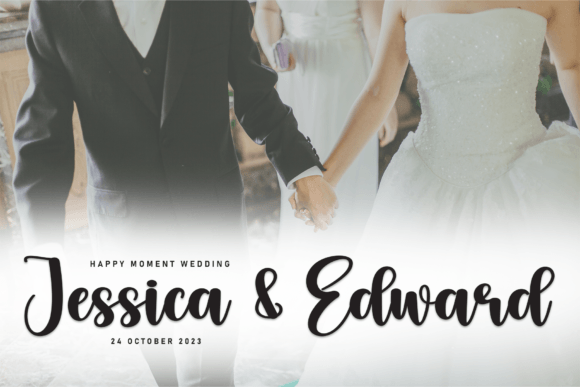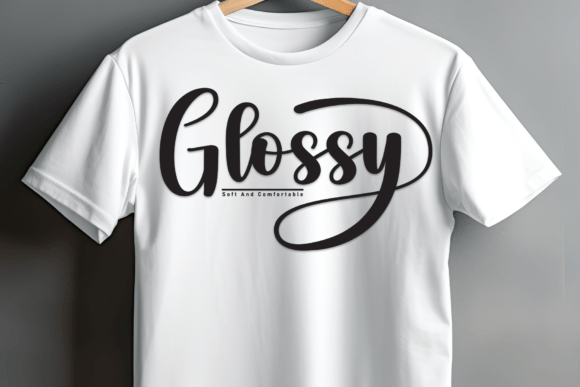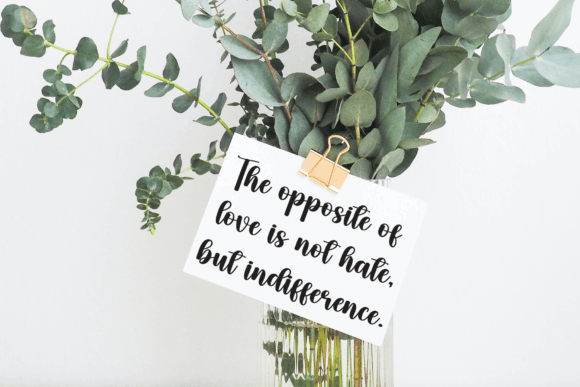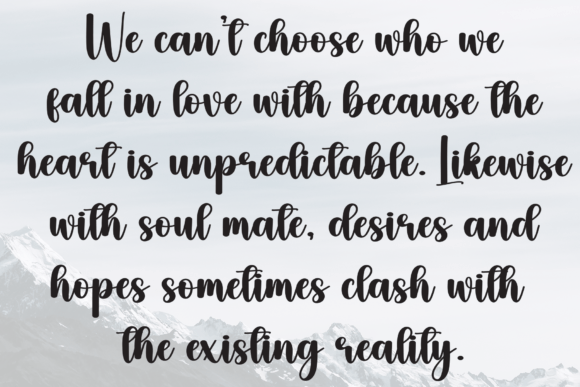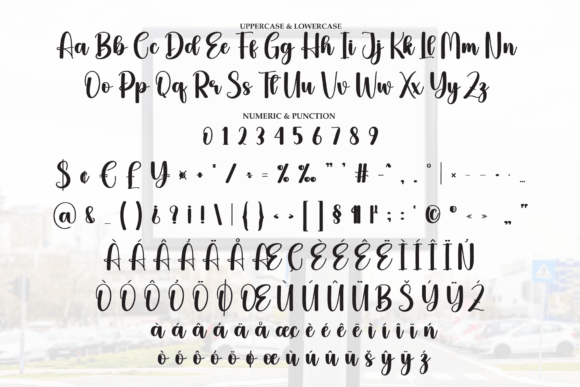
Discover the Charm of Advertising Font: A Sweet and Friendly Handwritten Display Font
Are you a designer or crafter looking for a font that can add a touch of whimsy and fun to your designs? Look no further than Advertising Font, a sweet and friendly handwritten display font that’s perfect for a variety of creative projects. In this article, we’ll take a closer look at the features and benefits of Advertising Font, and explore how you can use it to elevate your designs.
What is Advertising Font?
Advertising Font is a beautiful, handwritten display font that’s designed to bring a touch of personality and charm to your designs. With its cute and fun style, this font is ideal for writing wedding invitations, cards, or any other design that might need a fun touch. Whether you’re a professional designer or a crafty DIY enthusiast, Advertising Font is a versatile and easy-to-use font that can help you create stunning designs.
Key Features of Advertising Font
So, what makes Advertising Font so special? Here are just a few of its key features:
• Handwritten style: Advertising Font has a beautiful, handwritten style that’s perfect for adding a personal touch to your designs.
• Cute and fun: This font is designed to be cute and fun, making it ideal for designs that need a playful touch.
• Display font: Advertising Font is a display font, which means it’s perfect for headlines, titles, and other large text elements.
• Easy to read: Despite its playful style, Advertising Font is easy to read, making it perfect for designs that need to communicate a message.
Uses for Advertising Font
So, what can you use Advertising Font for? The possibilities are endless! Here are just a few ideas to get you started:
• Wedding invitations: Advertising Font is perfect for writing beautiful, one-of-a-kind wedding invitations that will set the tone for the big day.
• Cards and stationery: This font is also great for creating cute and fun cards and stationery for special occasions.
• Social media graphics: Advertising Font can add a touch of personality to your social media graphics, making them stand out from the crowd.
• Signs and posters: This font is also perfect for creating eye-catching signs and posters for events, sales, and promotions.
Tips for Using Advertising Font
Here are a few tips for getting the most out of Advertising Font:
• Use it sparingly: Advertising Font is a display font, so it’s best used sparingly to add emphasis and personality to your designs.
• Pair it with other fonts: This font pairs well with other fonts, so don’t be afraid to experiment with different combinations to find the perfect look.
• Experiment with colors: Advertising Font looks great in a variety of colors, so don’t be afraid to get creative and try out different color schemes.
Advertising Font is a sweet and friendly handwritten display font that’s perfect for designers and crafters who want to add a touch of whimsy and fun to their designs. With its cute and playful style, this font is ideal for a variety of creative projects, from wedding invitations and cards to social media graphics and signs. Whether you’re a professional designer or a DIY enthusiast, Advertising Font is a versatile and easy-to-use font that can help you create stunning designs that stand out from the crowd.